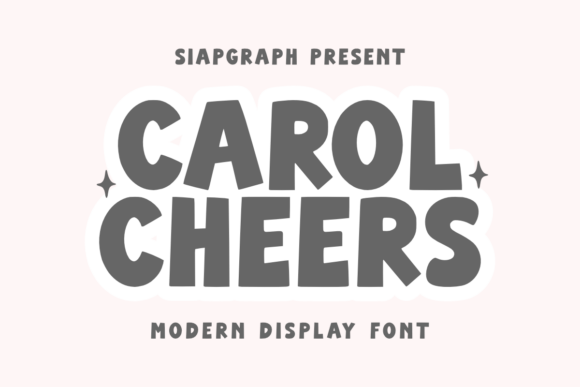
Introduction to Carol Cheers Font
Carol Cheers is a bold and playful modern display font that brings a cheerful and energetic vibe to your designs.
With its slightly irregular, chunky letterforms and fun aesthetic, this font is perfect for headlines, branding, posters, children’s books, packaging, social media graphics, and more Carol Cheers adds a touch of personality and excitement to any project, making it a great choice for designers looking for a standout font.
Key Features of Carol Cheers Font
Why Choose Carol Cheers Font?
Carol Cheers Font offers exceptional quality and versatility, making it a valuable addition to your design toolkit. Whether you’re creating for personal projects or commercial use, Carol Cheers Font delivers professional results.